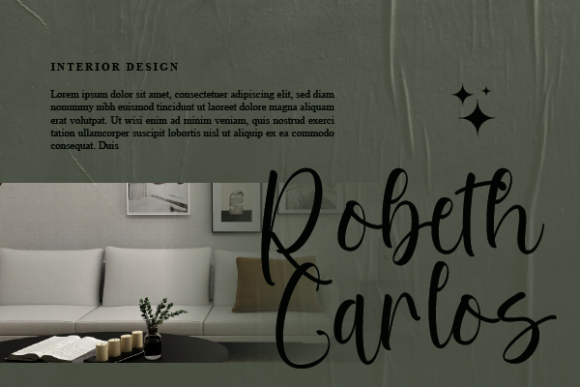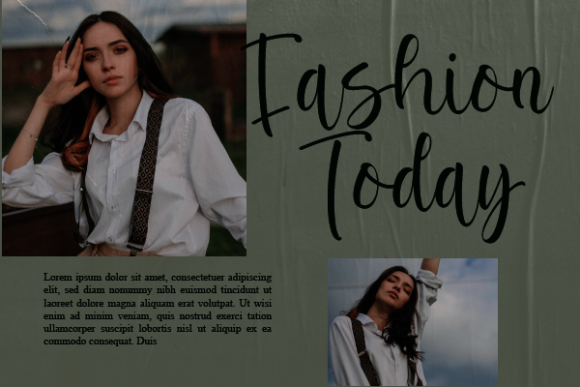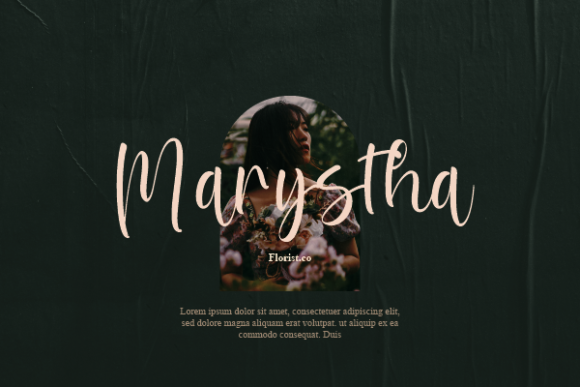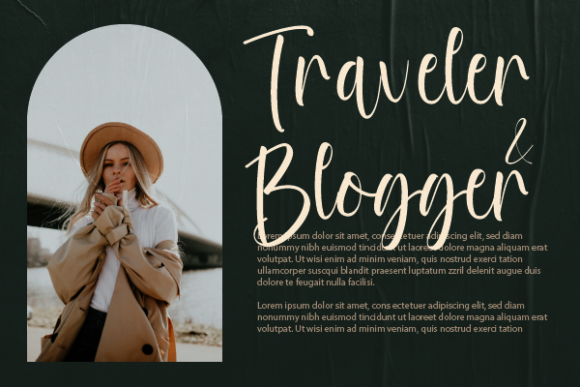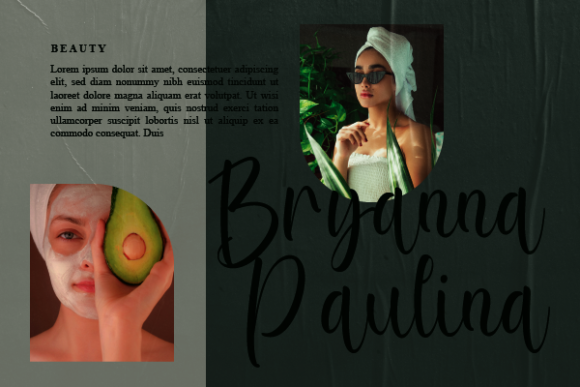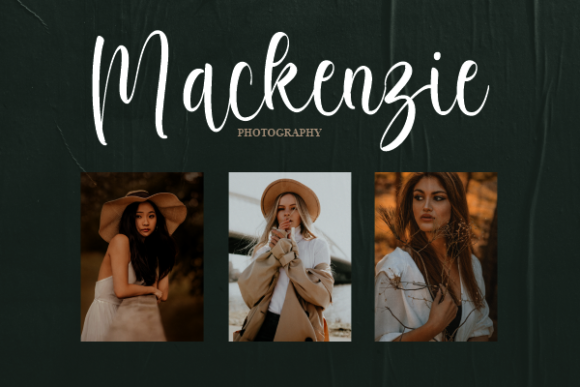
Introduction to Hannah Hudson Font
Remember that moment when you’re brainstorming ideas for your next design project, and the perfect font just pops into your mind? For many designers, that moment is what makes all the hard work worth it. And, for those who are looking for a beautiful and elegant script font to elevate their creative project, the Hannah Hudson Font is the perfect solution.
This lovely and delicate script font exudes elegance and class, making it a valuable asset for designers who want to add a touch of sophistication to their designs. Whether you’re working on a wedding invitation, a blog post, or a business card, the Hannah Hudson Font is sure to impress.
Hannah Hudson Font
- High-quality design resource ideal for creative projects and personal use.
- Features a transparent background, allowing for seamless integration into any design.
- Designed with a unique and elegant style, perfect for various applications such as logos, graphics, and more.
Honest Review: Hannah Hudson Font
As a designer, I’m always on the lookout for high-quality design resources that can elevate my creative projects. The Hannah Hudson Font is one such resource that caught my attention.
- The font’s elegant and sophisticated design makes it perfect for creating a professional and polished look.
- The transparent background allows for seamless integration with other design elements, giving me more creative freedom.
- The font may not be suitable for projects that require a bold or playful tone, as it’s more suited for formal or corporate designs.
- The font’s limited character set may not be sufficient for longer texts or body copy.
Overall, the Hannah Hudson Font is a solid addition to any designer’s toolkit. While it may have some limitations, its high-quality design and versatility make it a valuable resource for creative projects. I’d definitely recommend it for designers who need a sophisticated and professional font for their designs.
Hannah Hudson Font
Hannah Hudson Font is ideal for creative projects, such as:
– Social media graphics
– Blog posts
– Presentations
– Posters
– Flyers
– Business cards
– Packaging design
For the best results, use Hannah Hudson Font with a transparent background to create a clean and modern look. Experiment with different font sizes and colors to add visual interest to your design.
Is the Hannah Hudson Font suitable for high-resolution printing?
Yes, the Hannah Hudson Font is designed to be high-quality and suitable for high-resolution printing. It’s perfect for creating designs that require a transparent background or intricate typography. The font’s crisp lines and smooth curves ensure that it will look great even at large sizes and high resolutions.